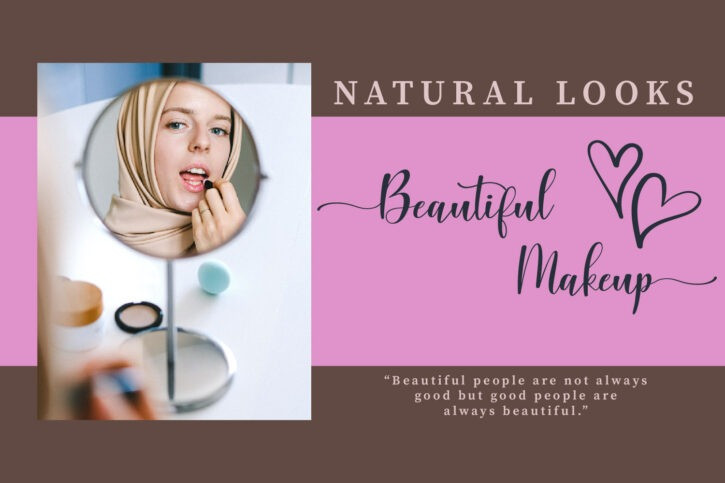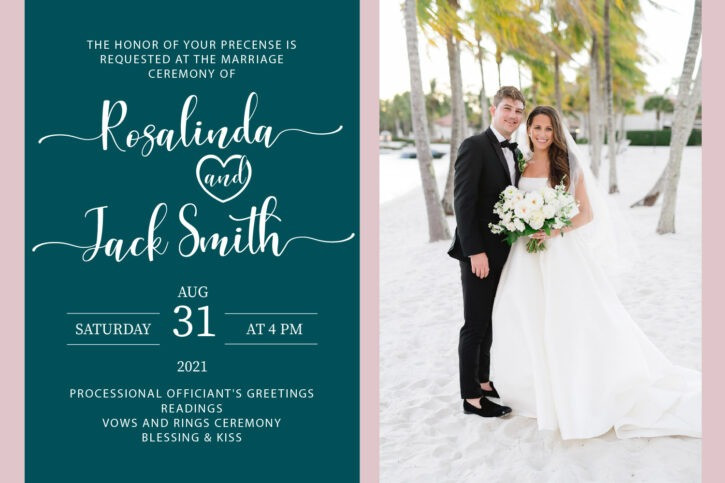
Dalisha Script Font
Dalisha Font is a casual calligraphy handwriting script font. The font handcrafted for any of your special projects : wedding, personal branding, florist signature, bakery menu etc. This font was particularly crafted for those who need a beautiful and refreshing look to their designs. It can be used for many projects, such as label, logo designs, online signatures, product designs, signage, title and much more!
Dalisha Font consists of uppercase, lowercase, number, and punctuation for a natural lettering look, and multilingual support. Works on PC & Mac, accessible in the Adobe products (Illustrator, Photoshop, Adobe InDesign), even work on Microsoft Word. This font also come with Multilingual Support.